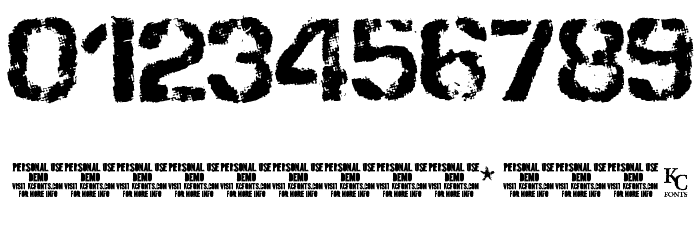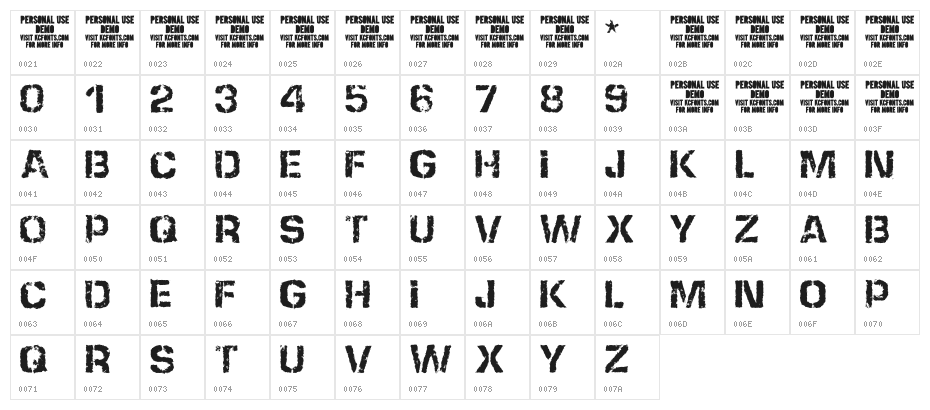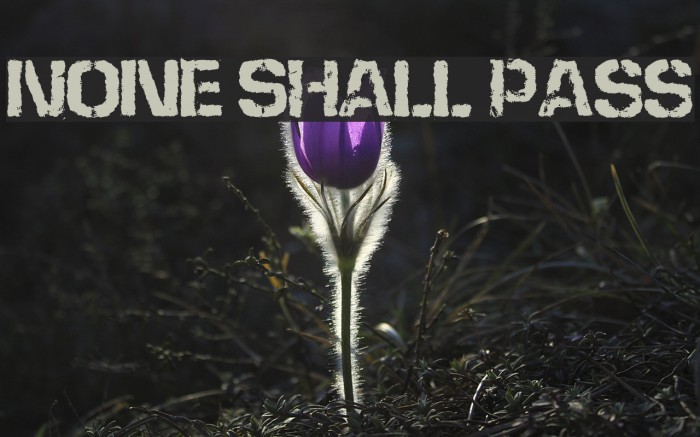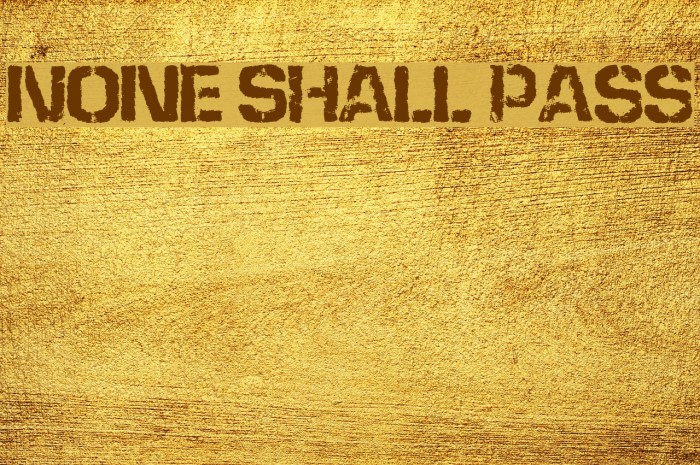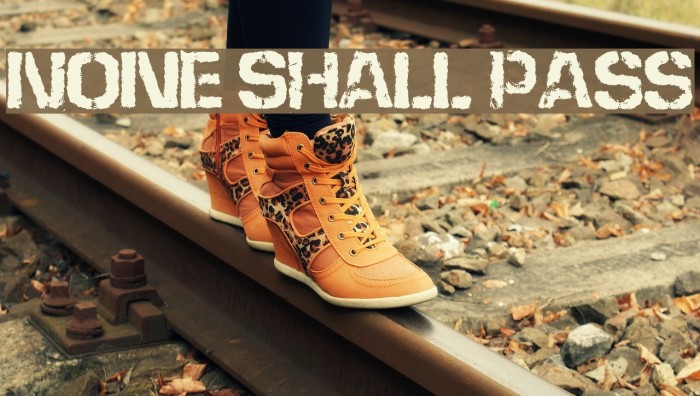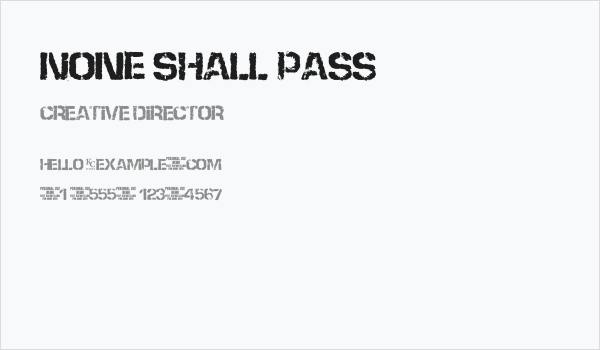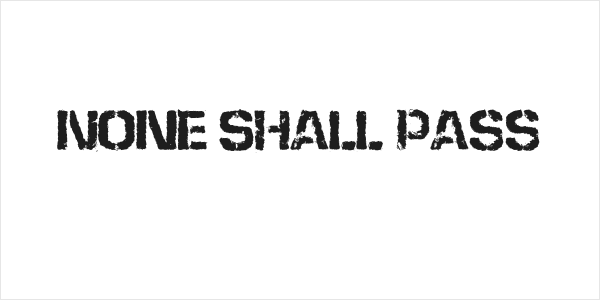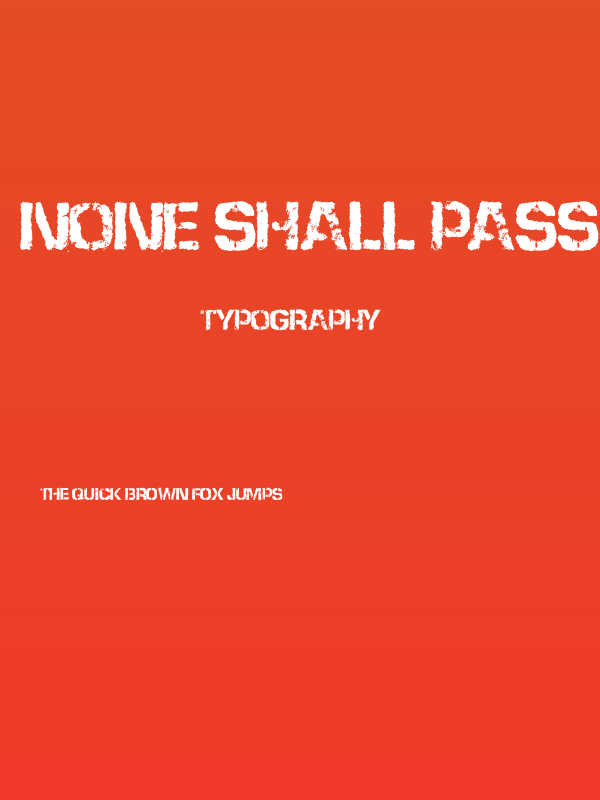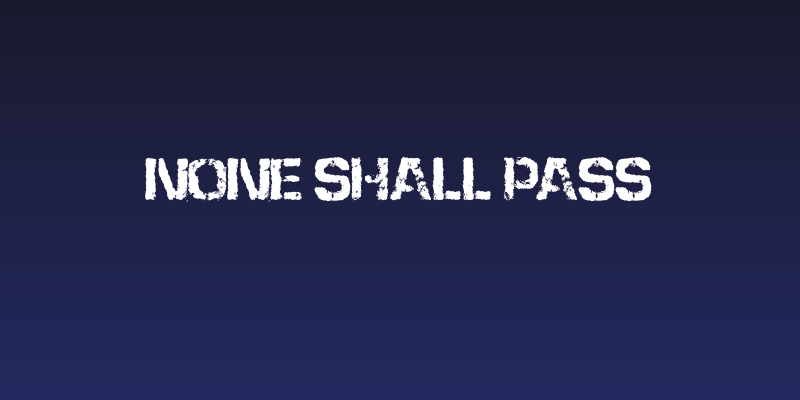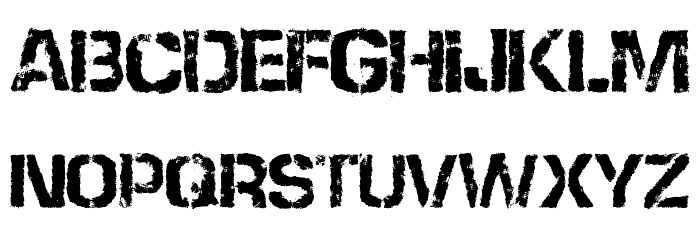
None Shall Pass Font
None Shall Pass Description
This font features a rugged, distressed style with a bold, impactful presence. Each character appears as if it has been weathered or eroded, giving it a gritty, textured look. The uppercase letters are uniform in height, maintaining a consistent baseline, while the numbers and special characters follow the same distressed aesthetic. The overall appearance is bold and eye-catching, making it suitable for designs that require a strong, rebellious, or industrial feel. The rough edges and uneven surfaces add a dynamic and energetic quality, perfect for projects that aim to convey strength and resilience.
| Proposed Projects | Ideal for posters, album covers, branding for edgy products, or any design needing a strong, industrial vibe. |